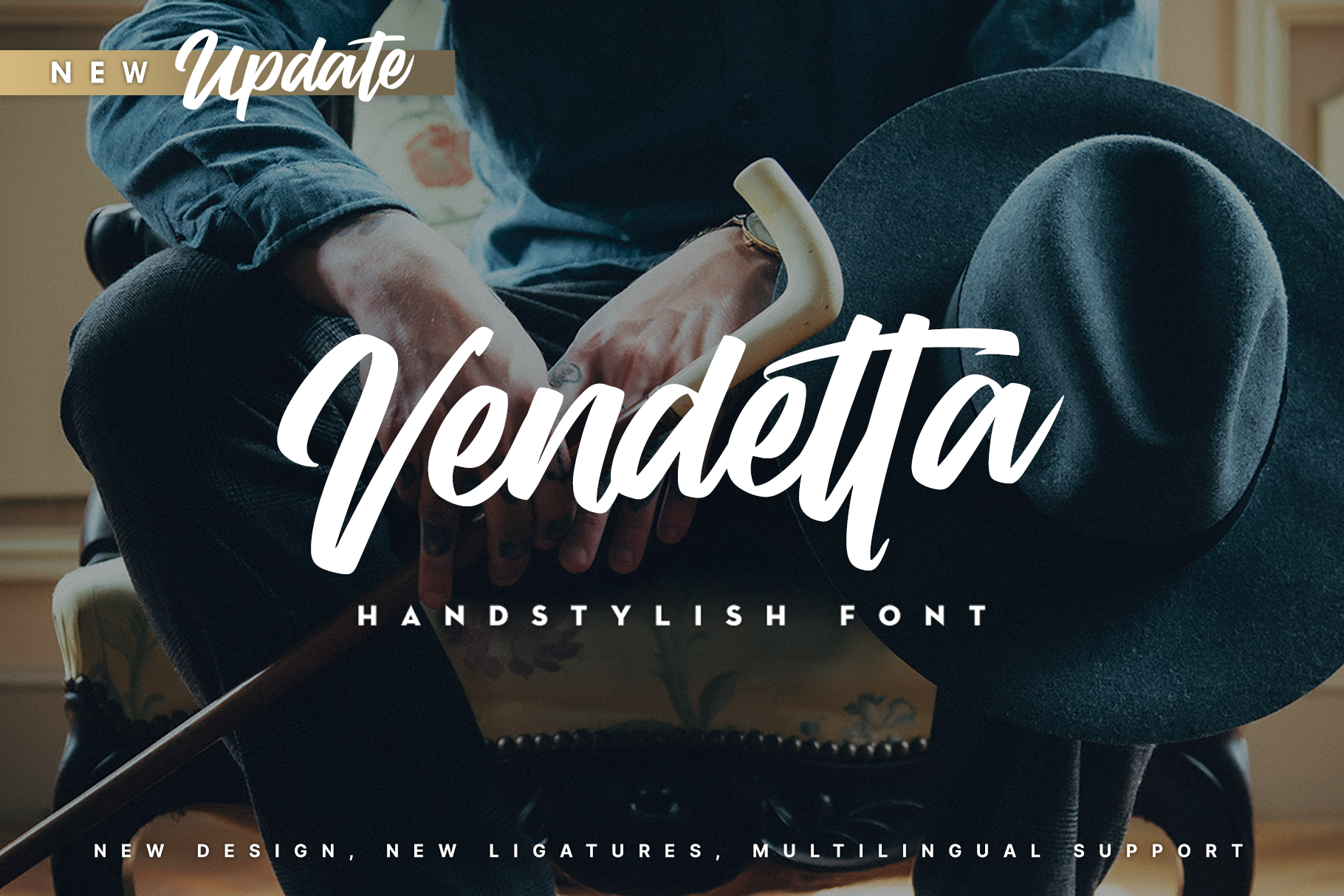
Vendetta Handstylish Font
NEW UPDATE!
Say hello for Vendetta Handstylish Font! Best match for logos, header, titles, prints & other creative process possibilities.
Create an extraordinary handstylish results by using Vendetta Handstylish Font!
FEATURES?
- NEW DESIGN!
- Ligatures (NEW!)
- Multilingual Support (NEW!)